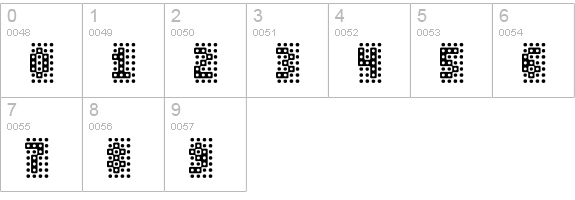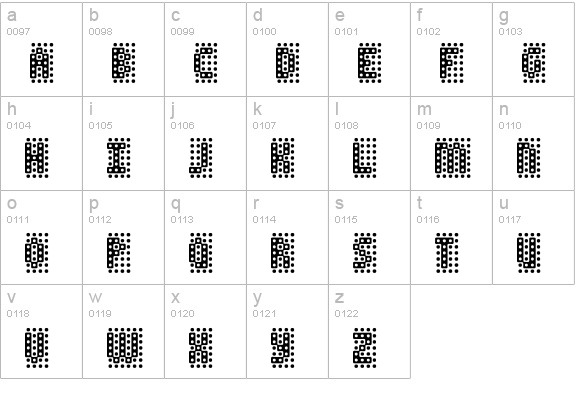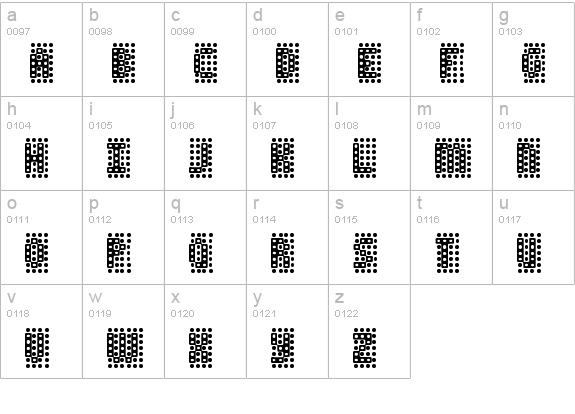
False Teeth Font Details
Introducing False Teeth font, a quirky and playful typeface that will bring a touch of whimsy to your design projects. With its irregular and imperfect letterforms, False Teeth exudes charm and character, making it perfect for adding a unique and eye-catching element to your designs. This font is free to download and use for personal and commercial projects, making it a versatile and cost-effective option for designers and creatives. Whether you're working on a fun branding project, a playful poster design, or a creative social media graphic, False Teeth font is sure to make your work stand out. You can freely download False Teeth font at FontsMarket.com, where you'll find a wide range of other high-quality fonts to enhance your creative projects. Don't miss out on the opportunity to add this delightful and distinctive font to your toolkit today!